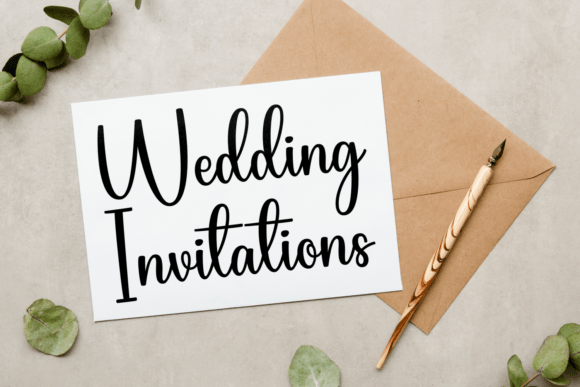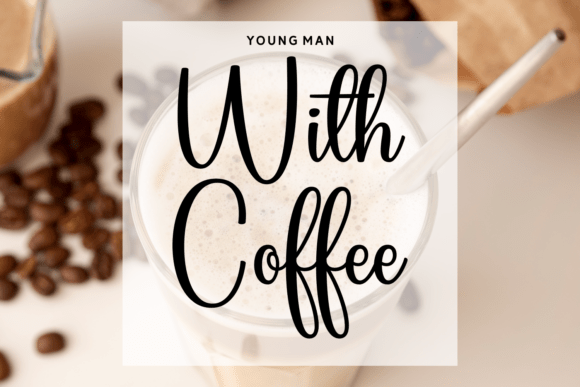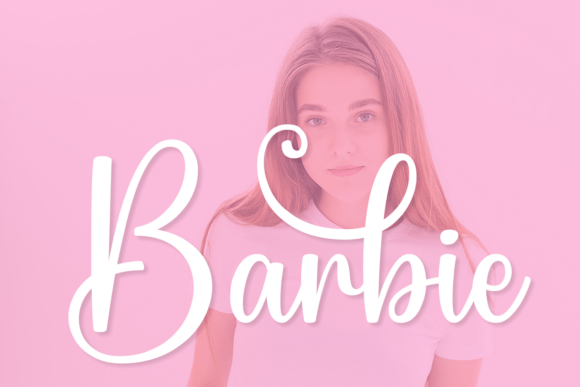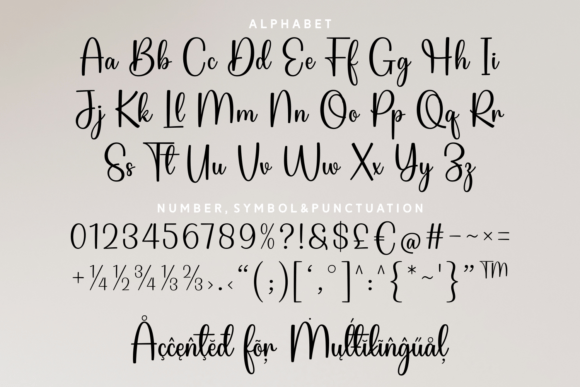
Introduction to Herself Font
You know that moment when you’re working on a creative project, and you need the perfect font to bring it all together? It’s like searching for a missing piece of a puzzle – until you find it, and suddenly everything falls into place. For many designers, that perfect font is the Herself Font, a stunning handwritten script that adds a touch of elegance to any design.
Whether you’re working on a branding project, creating event stationery, or crafting a beautiful blog header, the Herself Font is a valuable resource that can elevate your design to the next level. Its unique combination of tall ascenders and balanced curves makes it stand out from the crowd, and its free download option means you can access it without breaking the bank.
With a transparent background and high-quality design, the Herself Font is perfect for designers who want to add a personal touch to their creative projects. So why settle for a generic font when you can have a unique and expressive one that truly reflects your brand’s personality?
Key Features of Herself Font
- High-quality design resource for creative projects: Herself Font is a premium font designed to elevate your visual content.
- Transparent background: This font features a transparent background, making it easy to overlay on images or use as a design element.
- Unique, hand-drawn design: Herself Font features a unique, hand-drawn design that adds a personal touch to any creative project.
Honest Review: Herself Font
As a designer, I’m always on the lookout for high-quality design resources to enhance my creative projects. Recently, I had the chance to try out the Herself Font, and I’m here to share my honest review.
What works well: ✨ The Herself Font offers a unique and feminine touch to any design. The script font is perfect for adding a personal touch to wedding invitations, baby shower decorations, or any other creative project that requires a delicate feel. I also appreciate the transparent background option, which makes it easy to place the font over any image or color.
- High-quality design: The font is well-crafted and looks great even at larger sizes.
- Customizable: The font comes in various weights and styles, making it easy to customize to suit your design needs.
Limitations: ⚠️ While the Herself Font is a great addition to any design arsenal, I did find it to be a bit limited in terms of versatility. It’s perfect for feminine designs, but may not be the best choice for more masculine or modern projects.
Overall impression: The Herself Font is a great resource for designers looking to add a touch of elegance and sophistication to their creative projects. While it may have some limitations, its unique style and high-quality design make it a valuable addition to any design library.
Herself Font
The Herself Font is a unique and creative design resource that can elevate your next project. With a transparent background and high-quality design, it’s perfect for adding a personal touch to your work.